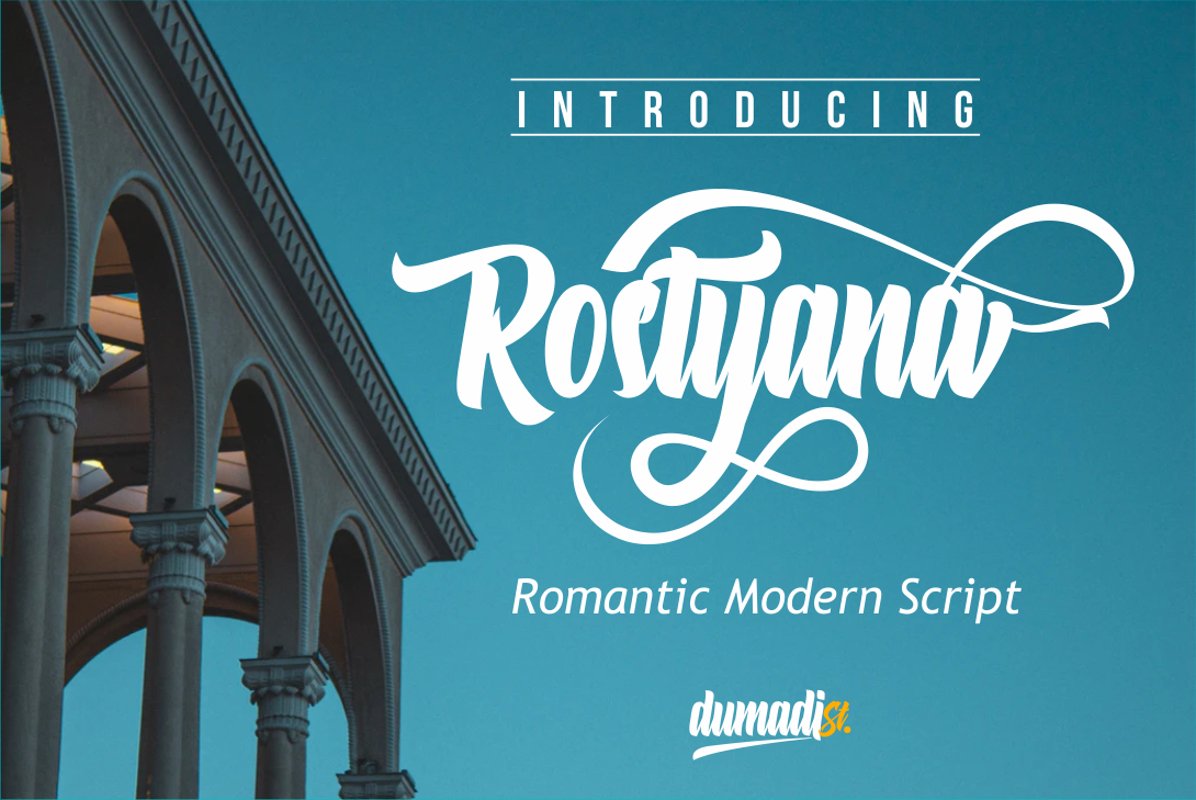
Rostyana
Rostyana is a modern romantic script font that creates beauty in any form. inside there are unique and beautiful glyps that can be used as variations in making logos, movie titles, moment titles and can be used for beautiful quotes.